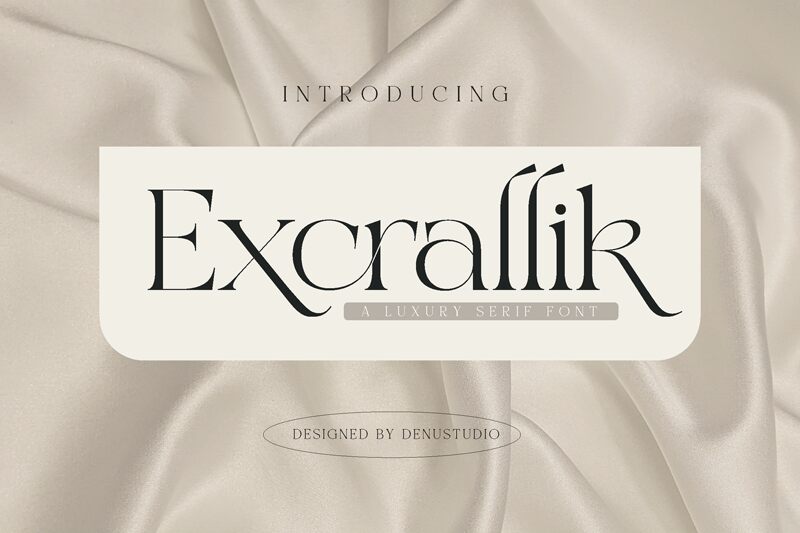
Excrallik
Excrallik font by Denustudios is a free serif font with sophisticated aesthetics and refined detailing. The designer managed to combine influences from traditional formal fonts with a modern approach that can suit today’s applications. Anyway, Excrallik is classic, elegant, and stylish.
Ideal for sophisticated work like elegant logos for brands in the fashion industry, movie titling designs (posters, trailers), magazine covers or interiors, clothing business brands/shops. Other interesting use cases include labels or packaging of luxury products in cosmetics (perfumes) or food (chocolate).
Features:
- Uppercase and lowercase letters
- Numerals
- Punctuation (OpenType Standard)
- Accents (Multilingual Characters)
- Ligatures and alternative styles in Stylistic Set